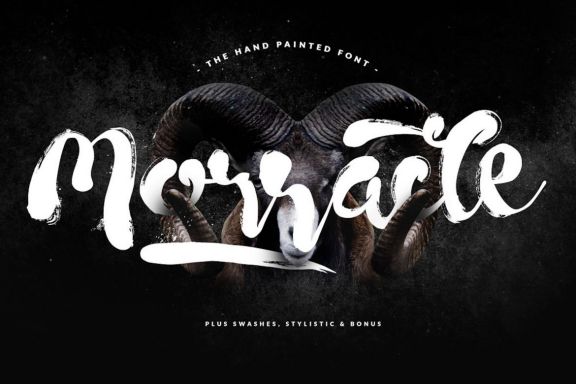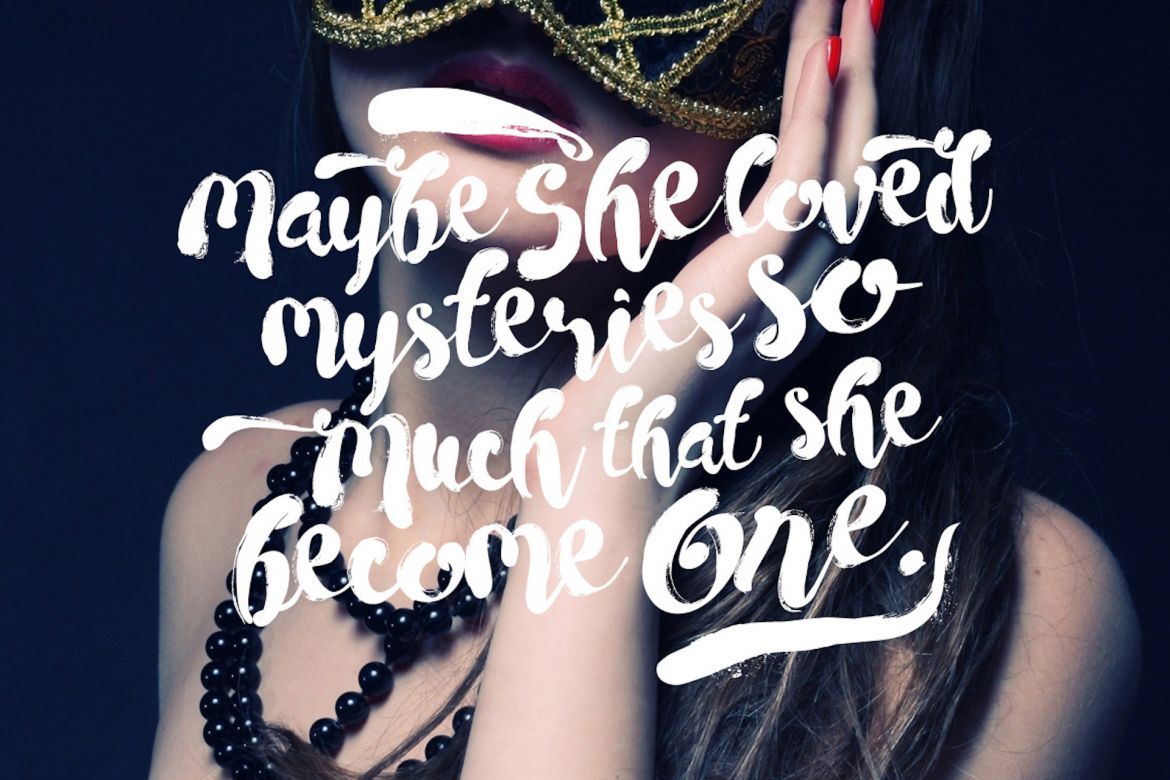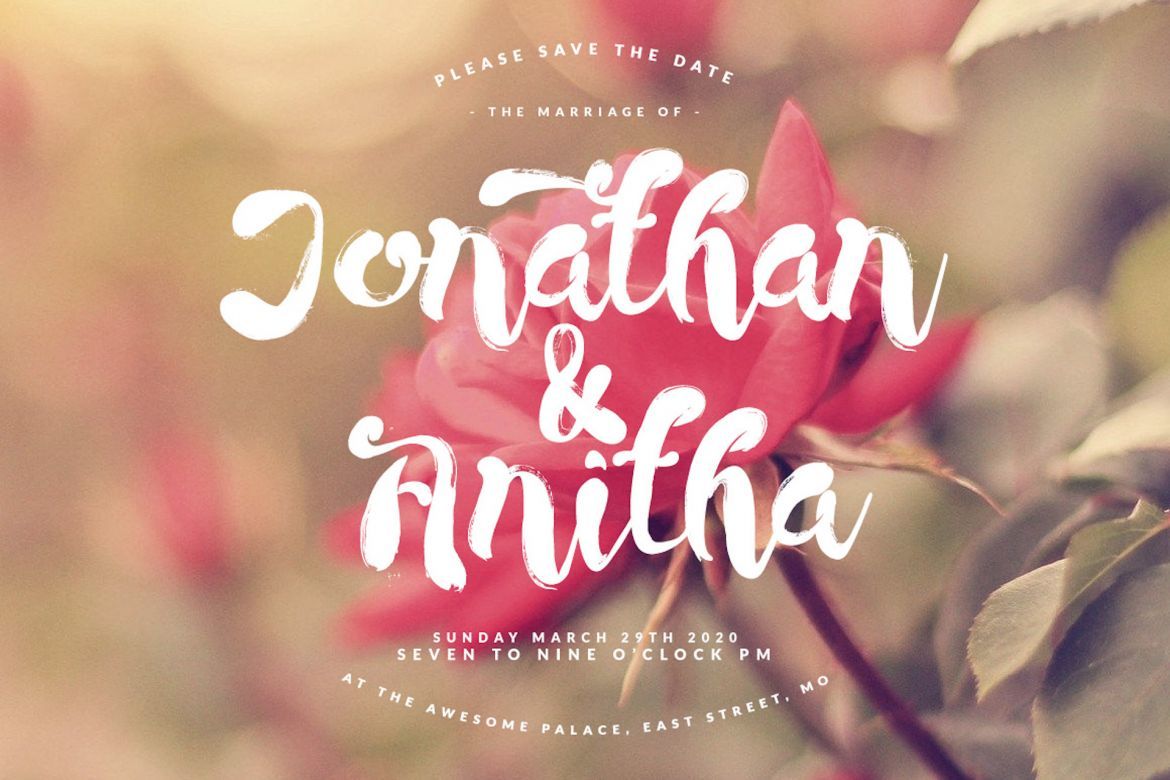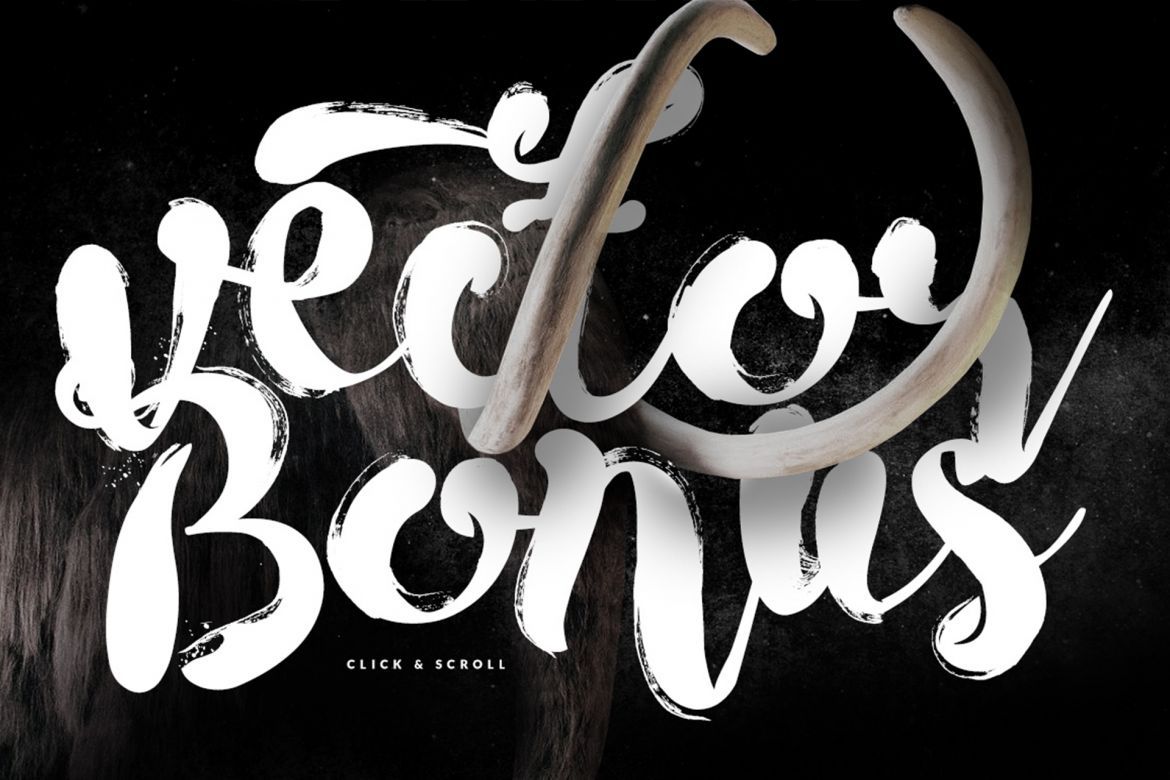
Morracle Brush Font
We're proud to introduce MORRACLE, inspired from ink & tints manual handdrawn brush, packed full of handmade. Use for awesome display, labeling, wedding invitation, clothing, movie sceen, film title, gigs, cover album, logos, and much more.